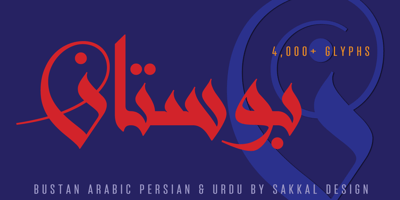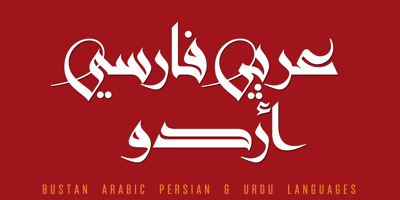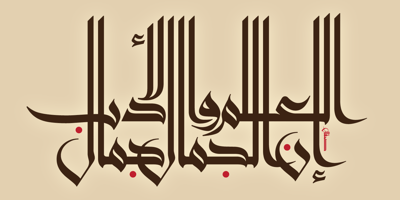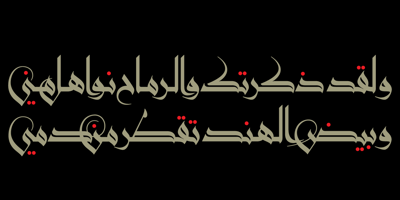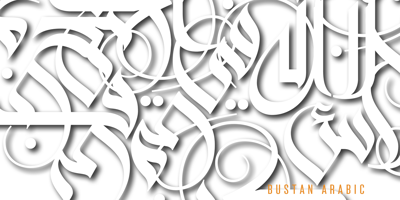
Sakkal Design
Sakkal Design type foundry is a father-daughter studio based in Bothell, Washington. It is the premier foundry producing Arabic typefaces in North America, and one of a select few around the world. With more than 25 years of experience and three awards of excellence from the Type Director’s Club in New York, Sakkal Design’s innovative and cutting edge designs emphasize aesthetic beauty, responsive functionality, and technical prowess.
The use of their typefaces ranges widely and can be seen in such applications as Microsoft Windows core fonts, opening titles of Arabic TV programs and series, Arabic newspapers, publications and book covers, and the signage of the tallest building in the world, Burj Khalifa tower in Dubai. They have worked with companies large (including Adobe, Bitstream, Linotype, Microsoft, and National Geographic) and small, and were commissioned to design several custom Arabic fonts for various OEM applications. Released Arabic typefaces include Arabic Typesetting, Awan, Bitstream Mobile Font, Burj Dubai Shilia, Bustan, Lablab, Microsoft Uighur, Sakkal Majalla, Sakkal Maya, Sakkal Seta, and Shilia.
On the “father” half of the foundry, Dr. Mamoun Sakkal established Sakkal Design in 1982 and has focused on Arabic typography and calligraphy since the 1990s. He is a well-known calligrapher and type designer with numerous awards to his credit.
On the “daughter” half of the foundry, Aida Sakkal specializes in all things technical and she is particularly interested in programming the artistic tendencies of beautifully hand written calligraphy. With a B.S. degree in Computer Science from the University of Washington, her other primary interest is in developing tools to aid and automate the font creation process. Aida has been working with OpenType since 2001, and has played a role in the growth of OpenType and its application to Arabic fonts.